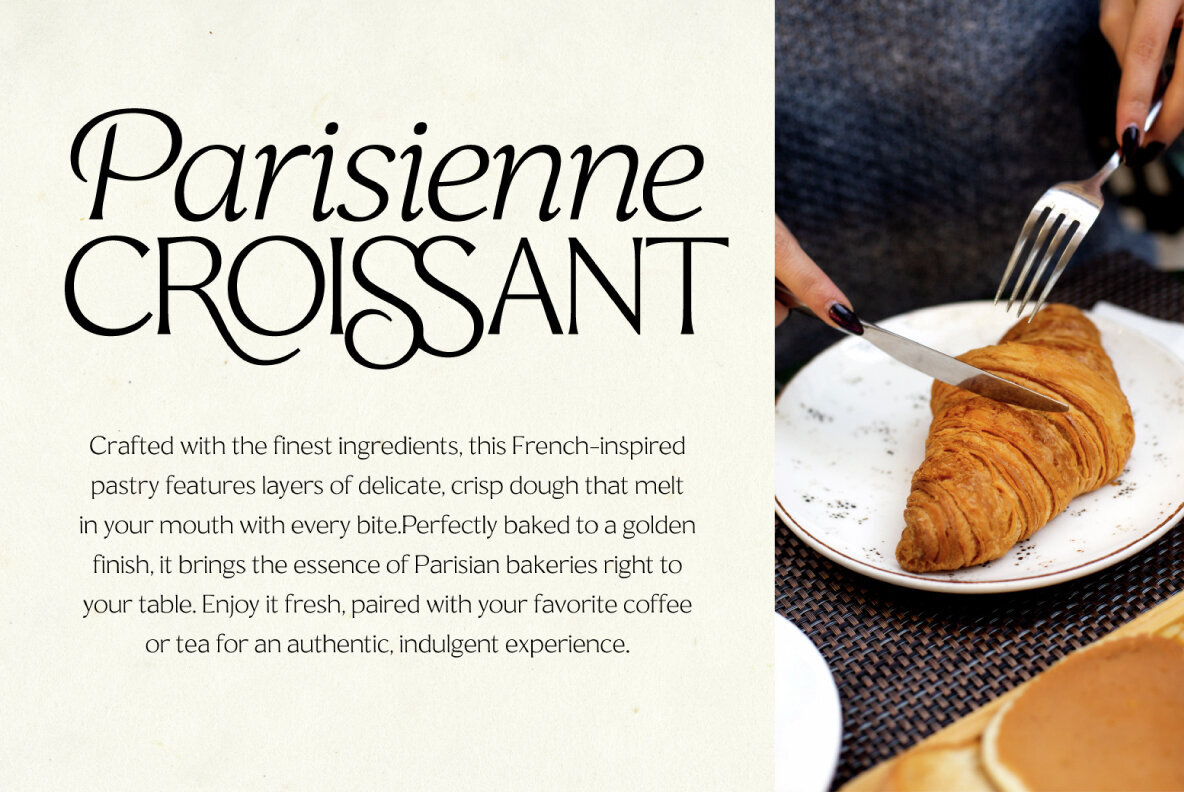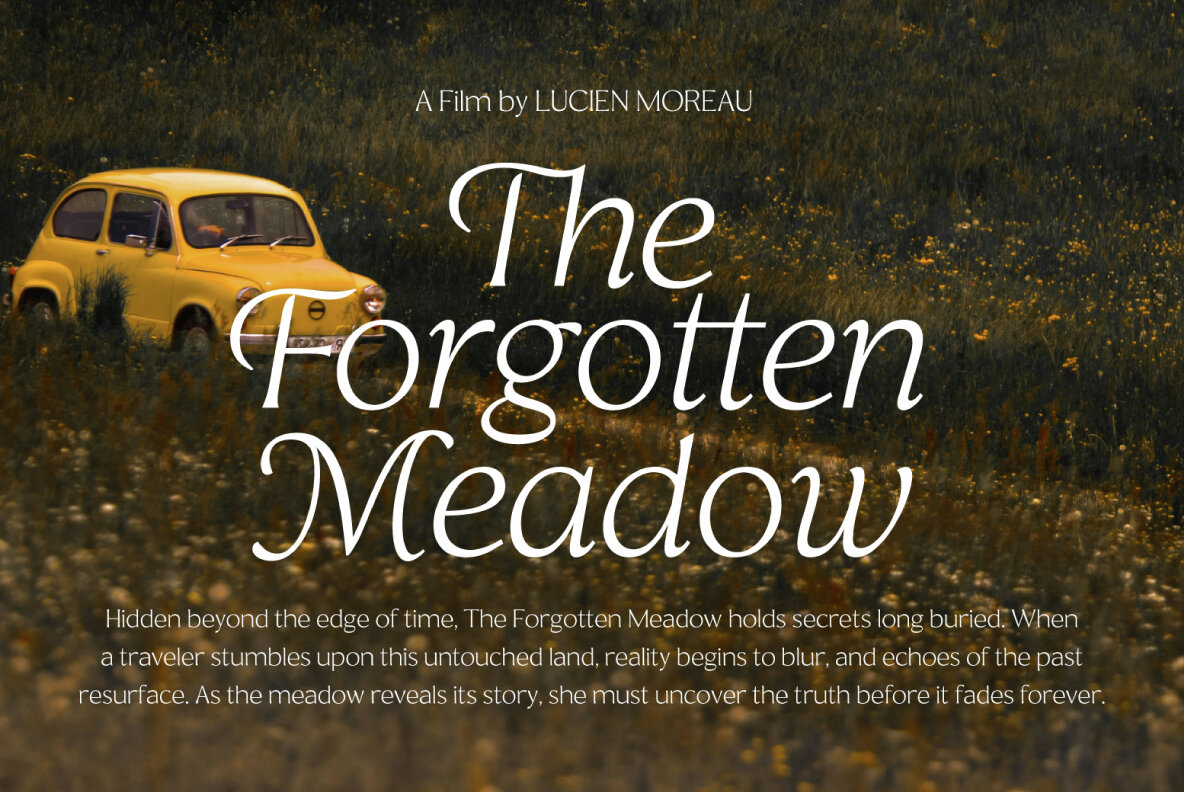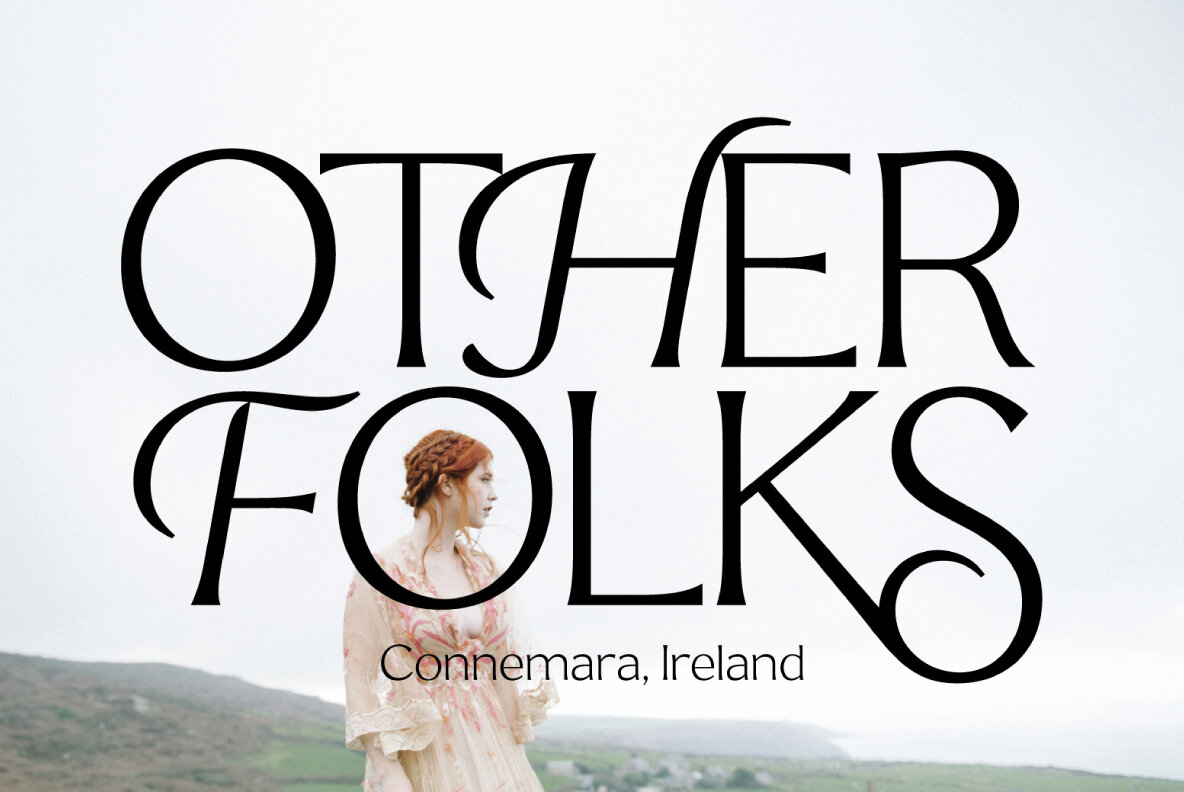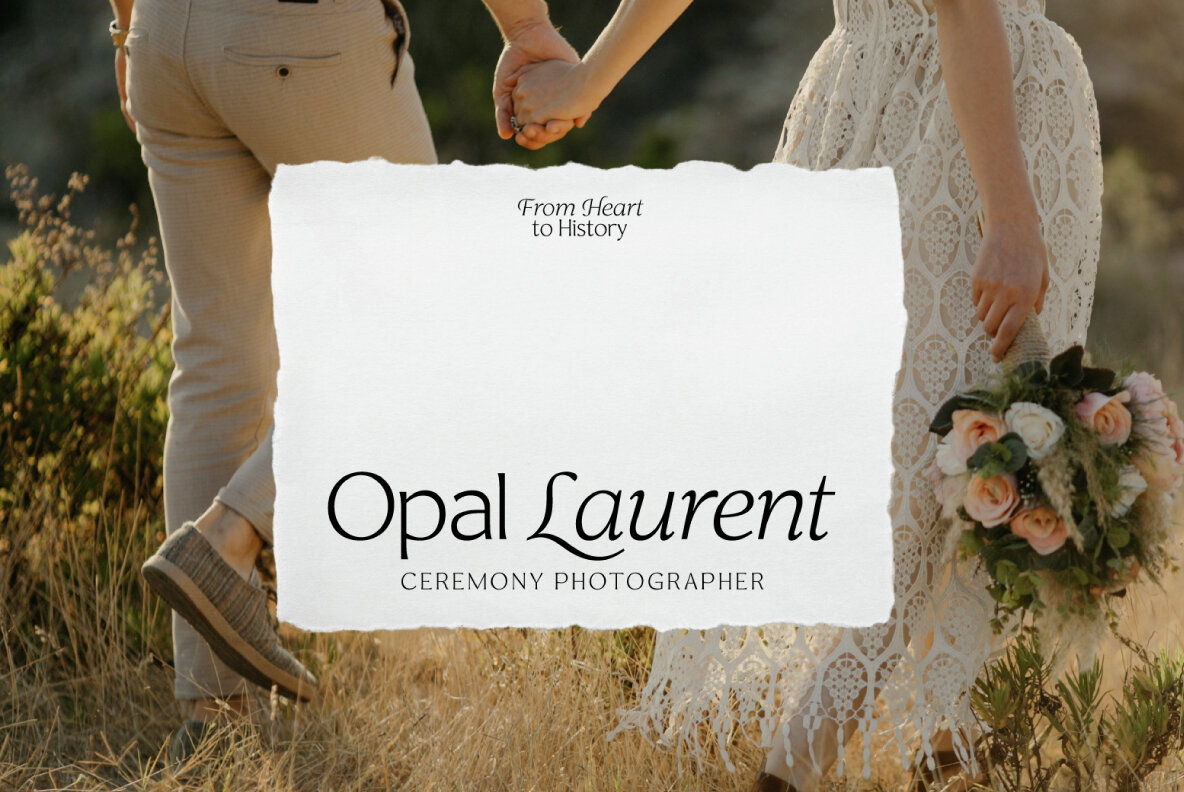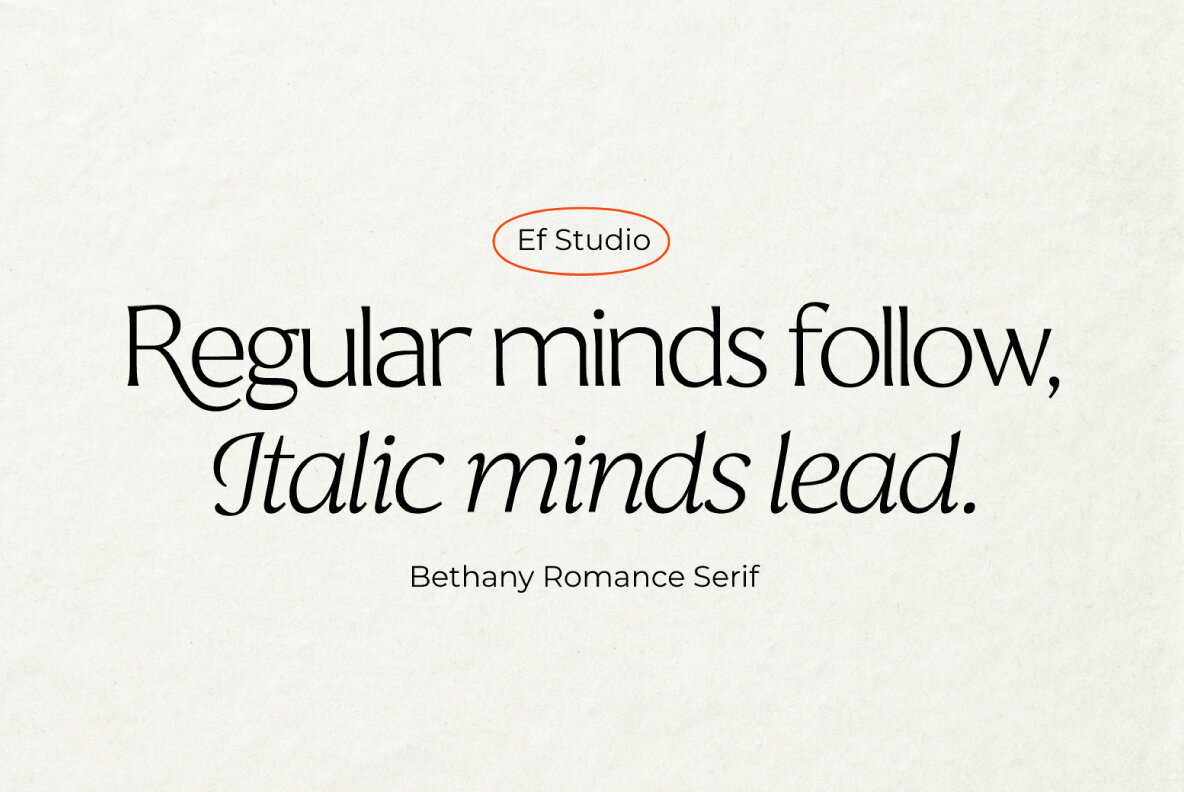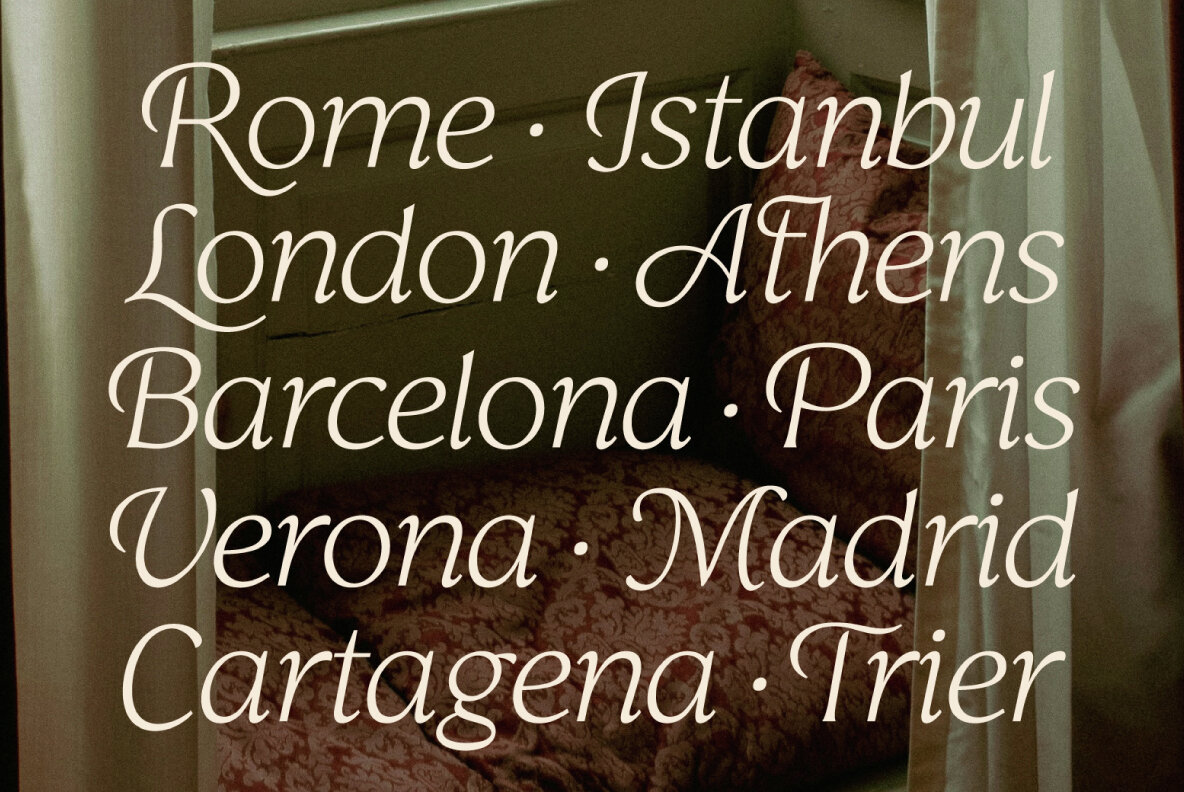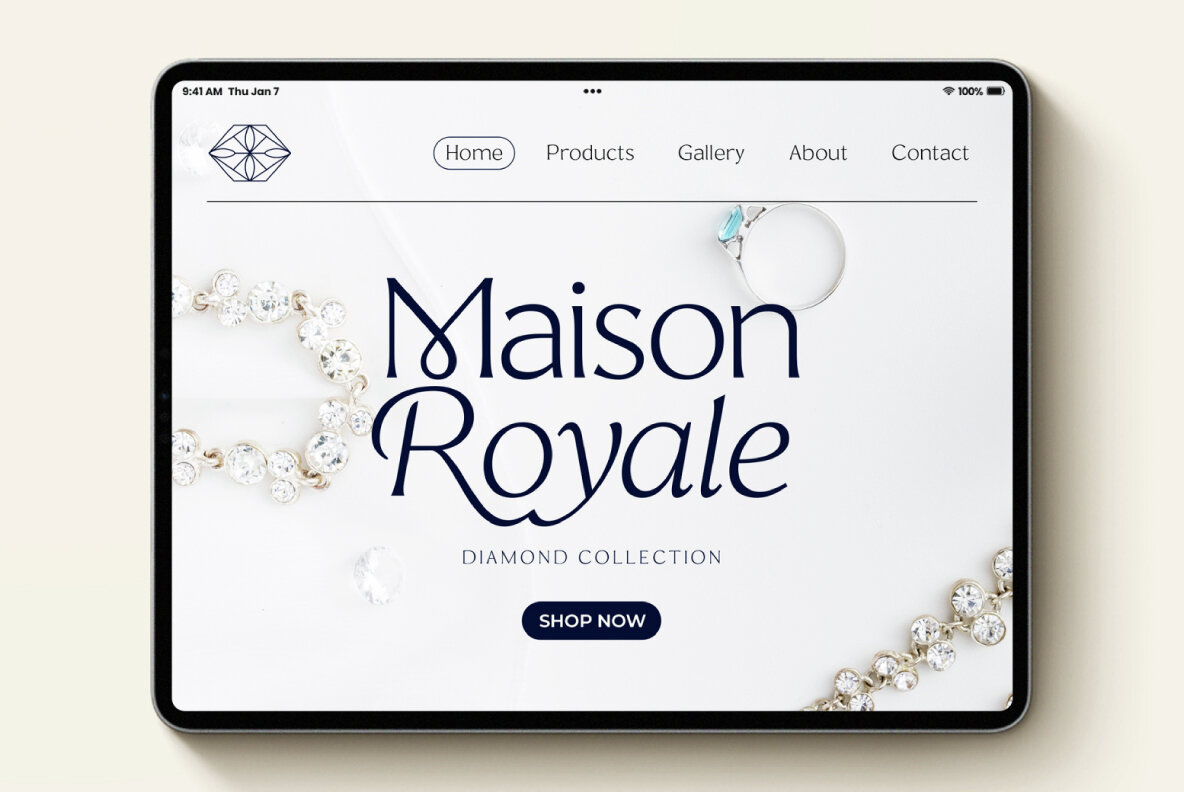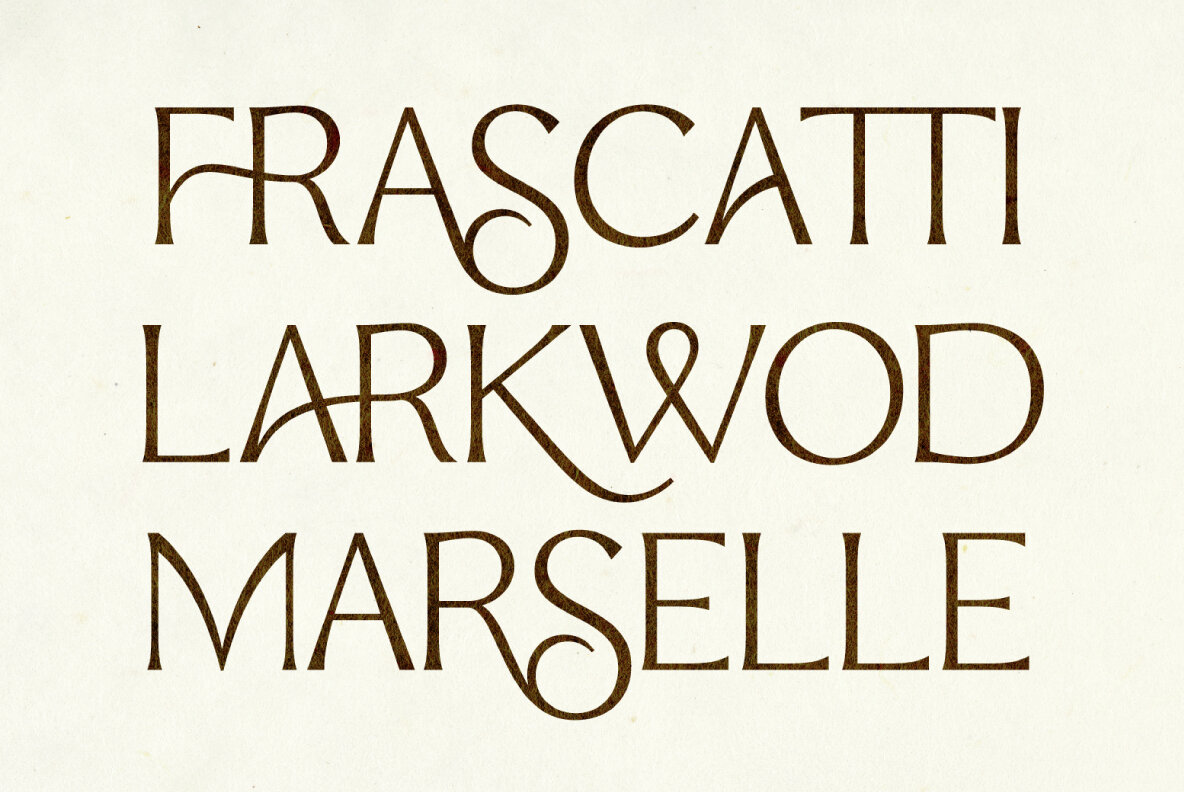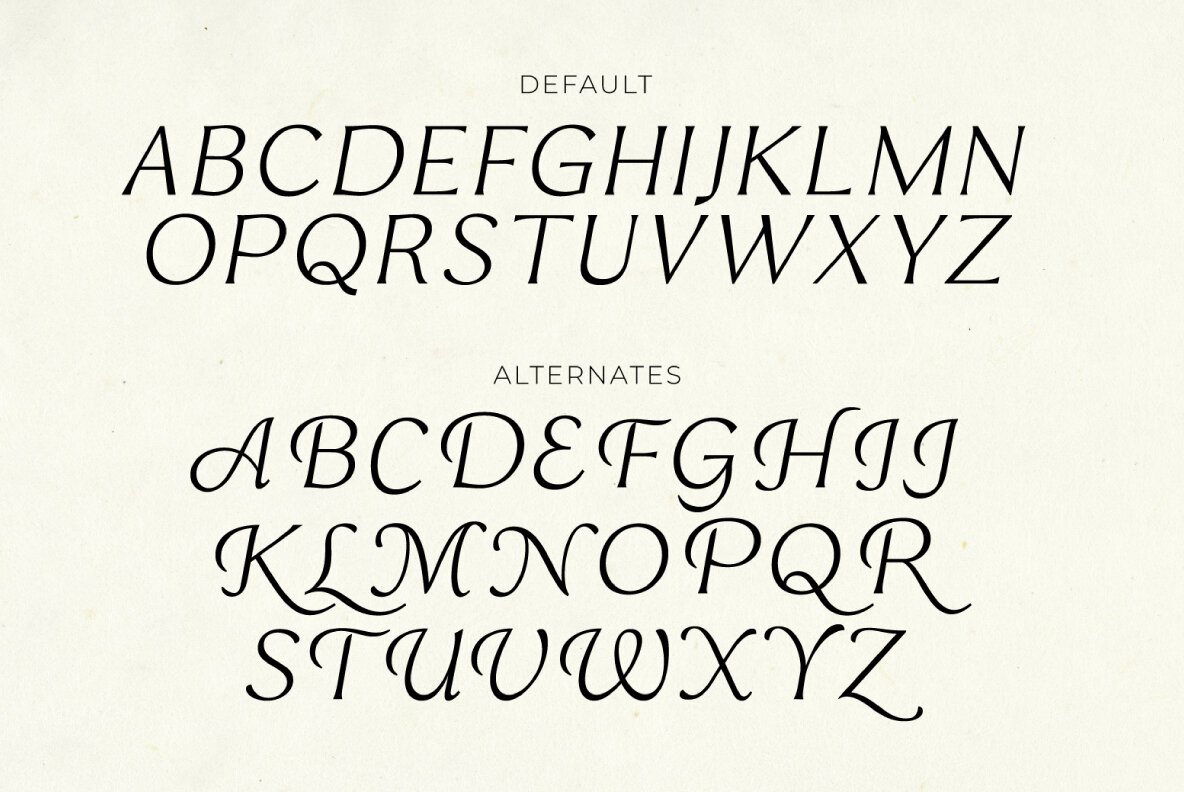
Bethany Romance Font
Bethany Romance is a refined semi-serif font that blends classic sophistication with contemporary charm. The regular style features sleek, high-contrast strokes, while the italic alternates introduce graceful swashes, adding a touch of luxury to any design. Perfect for branding, editorials, and elegant invitations.